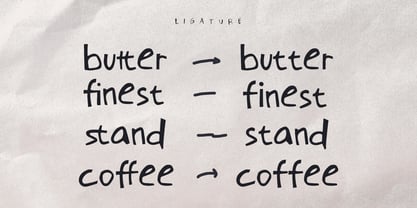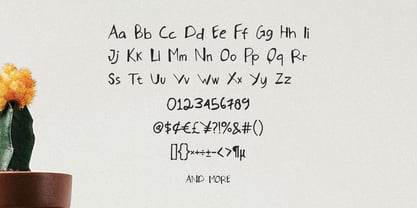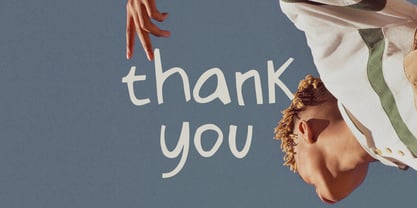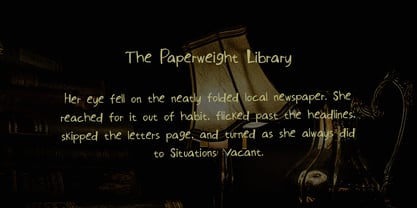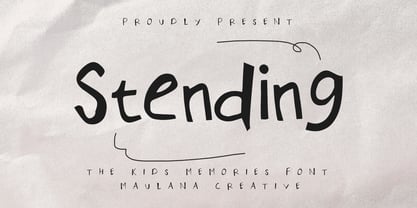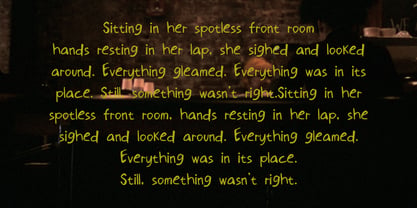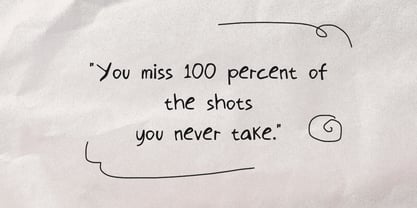
MC Stending
by Maulana Creative
The MC Stending Font Family was designed by Gilang Maulana and published by Maulana Creative. MC Stending contains 1 styles. More about this family
Stending is a kids memory handmade handwritten font. With bold stroke, fun character with a bit of ligature. To give you an extra creative work. Stending font support multilingual more than 100+ language. This font is good for logo design, Social media, Movie Titles, Books Titles, a short text even a long text letter and good for your secondary text font with sans or serif. Make a stunning work with Stending font.
Designers: Gilang Maulana
Foundry: Maulana Creative